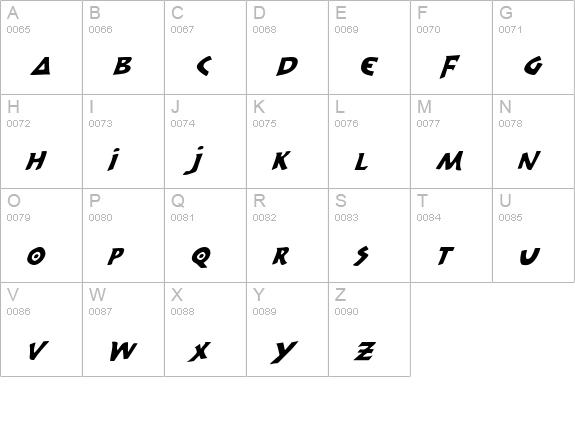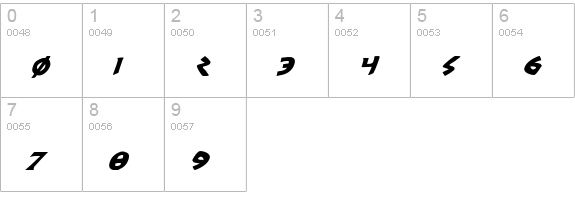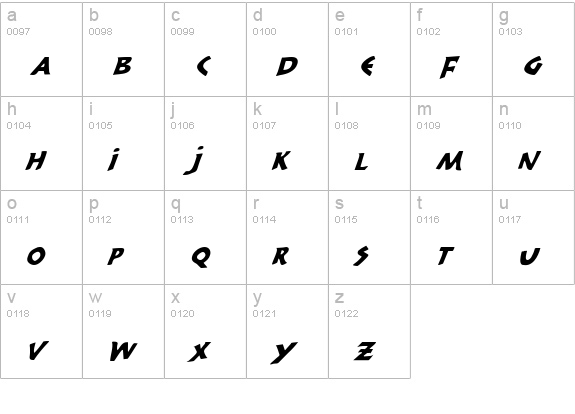
300 Trojans Italic is a distinctive, italic variant in the 300 typeface family \xE2\x80\x94 well suited to design and typography projects.
Introducing the exquisite and versatile 300 Trojans Italic font, a stunning addition to any design project. With its sleek and modern aesthetic, this font exudes elegance and sophistication. Perfect for adding a touch of class to your branding, marketing materials, or creative projects. Best of all, this premium font is available for free download at FontsMarket.com. Don't miss out on the opportunity to enhance your designs with the timeless beauty of 300 Trojans Italic font. Download it today and elevate your visuals to new heights.